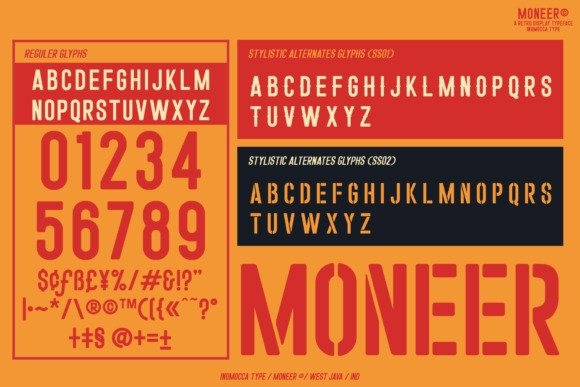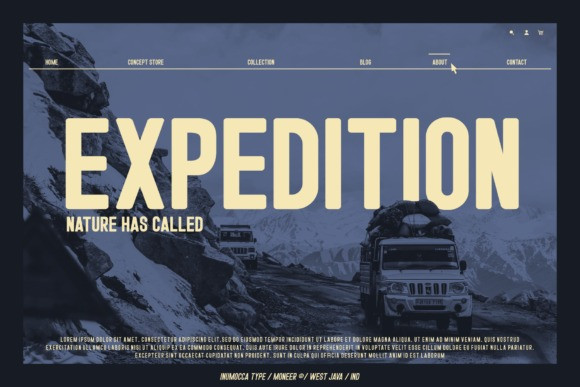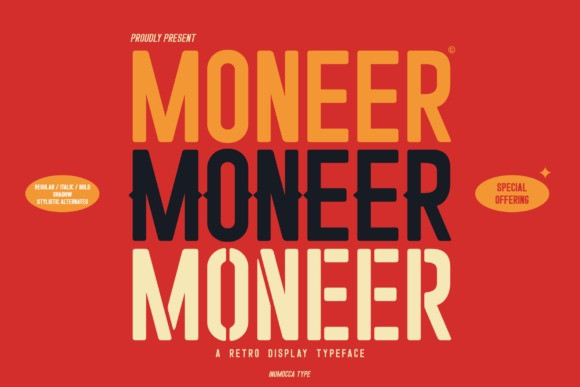
Moneer Font
Moneer Font is A Retro Display typeface. 70s style era, Simple, play full, Powerfull and unique Character font The Typeface comes with Stylistic Set and some family font Exellent typeface to use for covering your Project, like Branding, Movie Title, Headline Letter, Bookcover or Book Content, Magazine cover, Poster, Quotes Lettering, Logos, and more your project design.